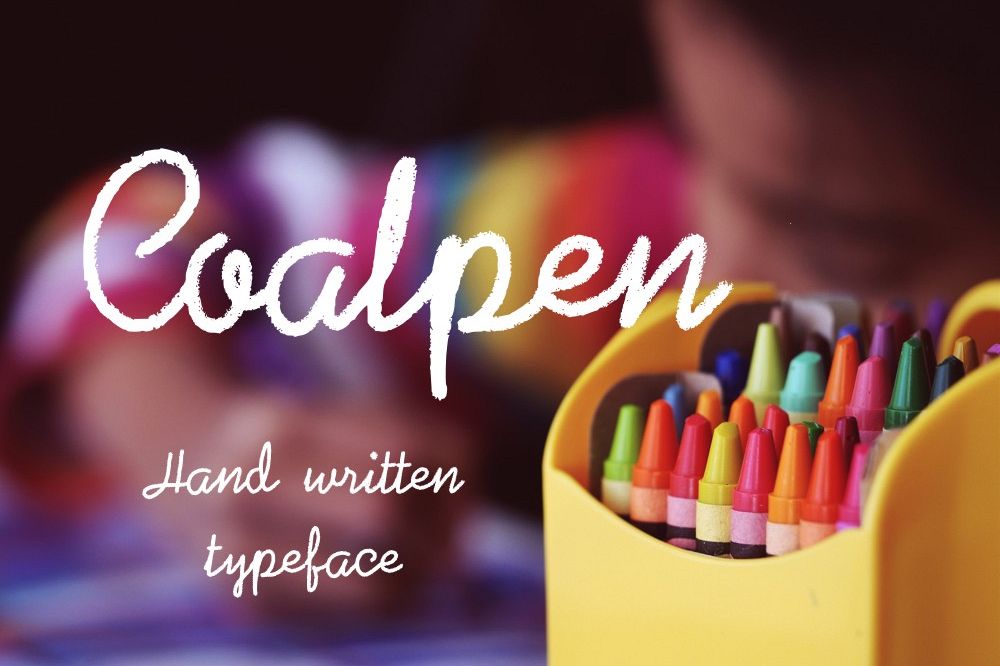
Coalpen font
Introducing Coalpen font, a hand drawn typeface.
This font is great for book covers, titling, signage, poster, flyers, calendars, headlines, businnes cards and other printed stationeries.